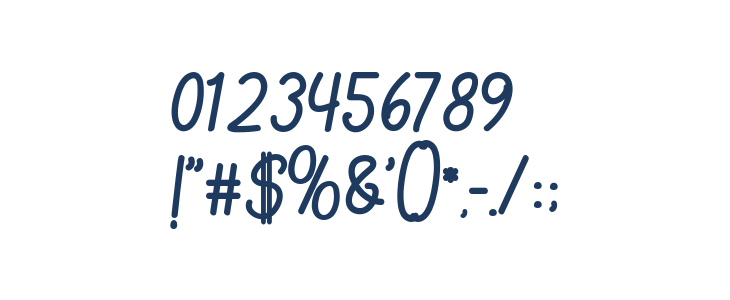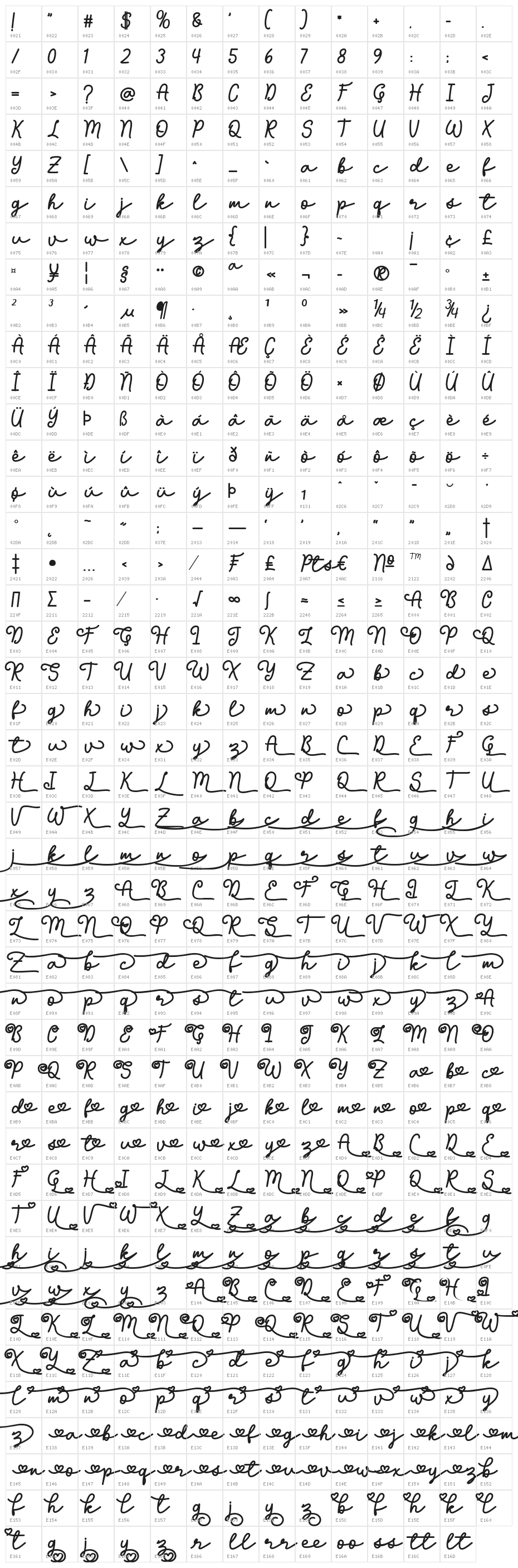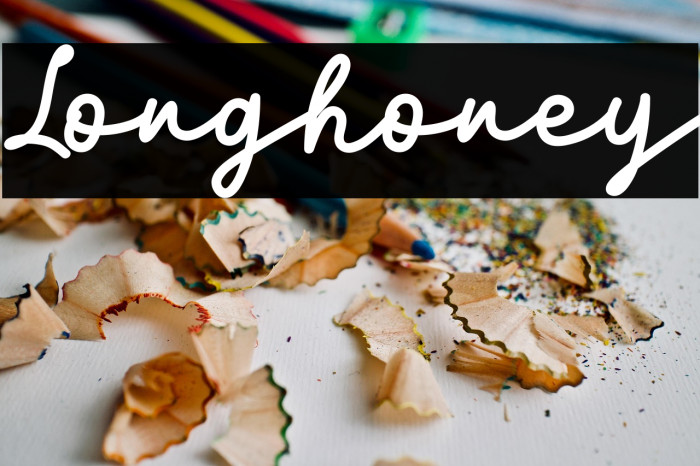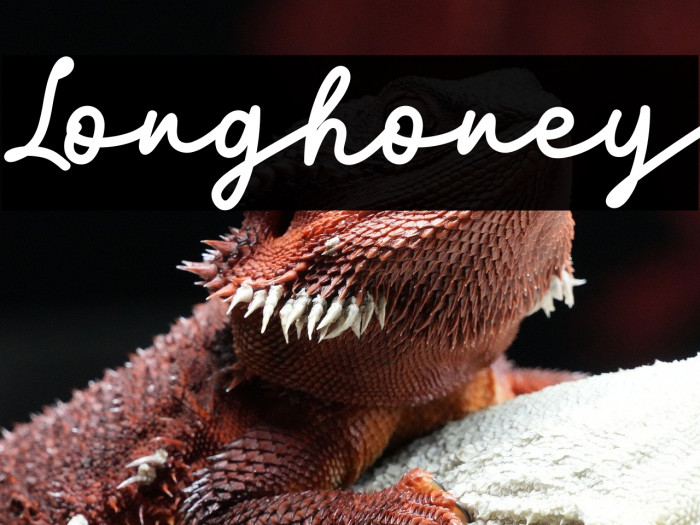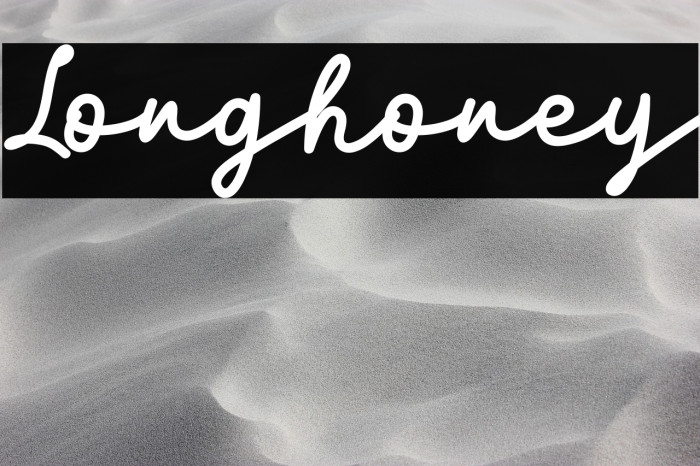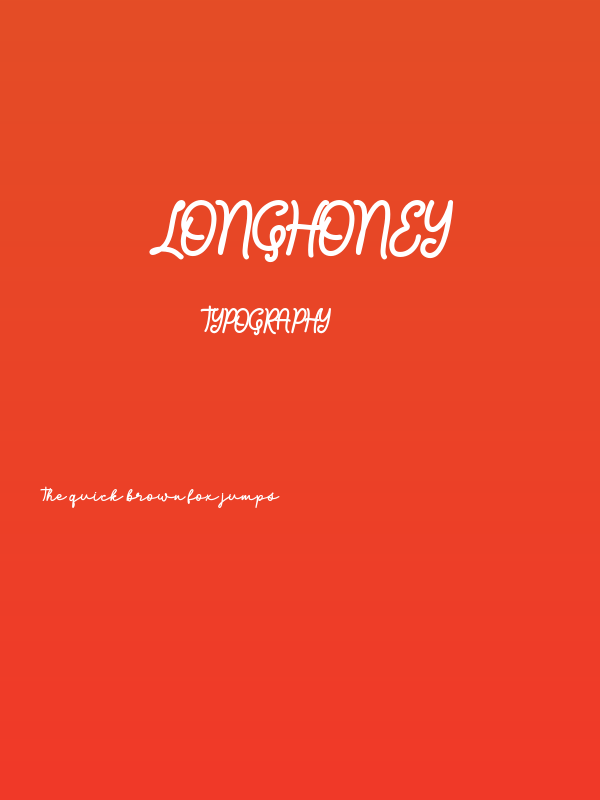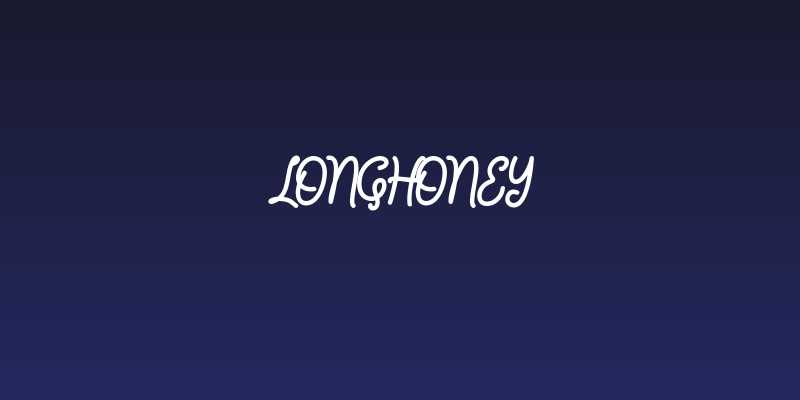
Longhoney Font
Longhoney Description
This font features a playful and energetic script style with a handwritten appearance. The uppercase letters are bold and slightly slanted, giving a sense of movement and dynamism. The lowercase letters are more fluid and connected, enhancing the handwritten feel. The numbers are consistent with the overall style, maintaining the same playful and bold characteristics. Special characters are well integrated, matching the font's lively and informal aesthetic. The strokes are smooth and rounded, contributing to a friendly and approachable look.
Overall StylePlayful
Use CaseLogos, Headlines, Invitations
Proposed ProjectsIdeal for greeting cards, invitations, playful branding, and social media graphics.